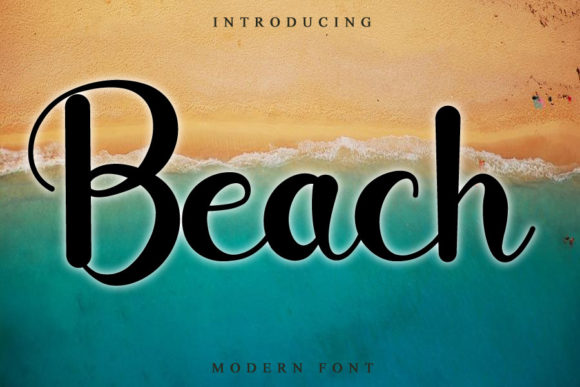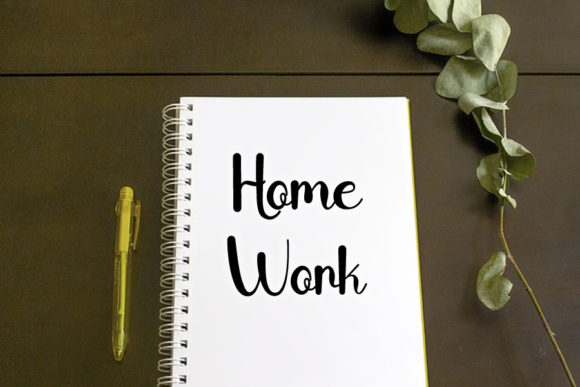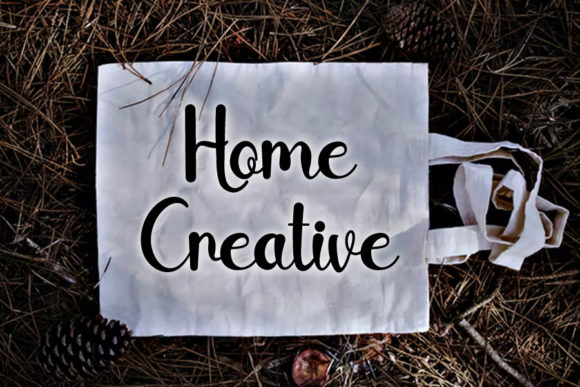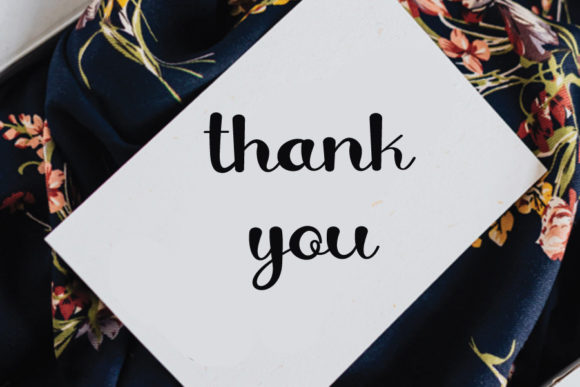
Introducing “Beach,” a fresh and beautiful font crafted for various design purposes. Whether you’re working on YouTube banners, cover logo mockups, wedding invitations, ID cards, flyers, or crafts, this font brings a versatile and appealing aesthetic to your projects. Utilizing “Beach” in your designs not only adds visual appeal but also contributes to the progress and development of your business. The simplicity and uniqueness of this font make it a valuable asset for creating distinct and memorable designs.
Imagine the breezy and fresh vibes of “Beach” enhancing your YouTube banners, creating an inviting and visually engaging channel presence. The font’s beauty and versatility make it suitable for a range of applications, ensuring that your design projects stand out.
For cover logo mockups, “Beach” adds a touch of elegance and modernity, making your brand or business identity memorable. Its simplicity ensures a clean and sophisticated look, contributing to a professional and impactful visual presence.
When it comes to wedding invitations, “Beach” offers a fresh and beautiful style that captures the essence of special moments. The font’s uniqueness adds a personal touch, creating invitations that are both stylish and heartfelt.
In summary, “Beach” is more than just a font; it’s a design tool that enhances your creative endeavors. Its fresh and beautiful qualities, combined with simplicity and uniqueness, make it suitable for a wide range of applications, allowing your designs to shine across various platforms.